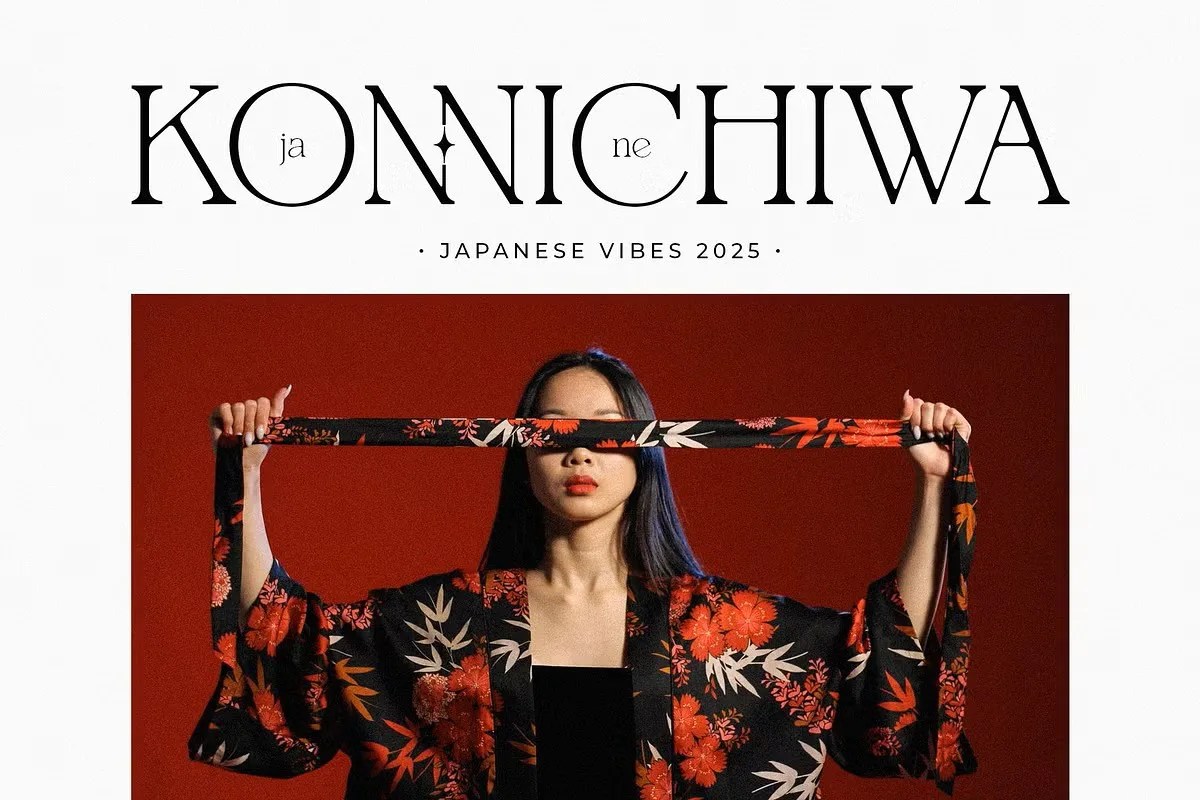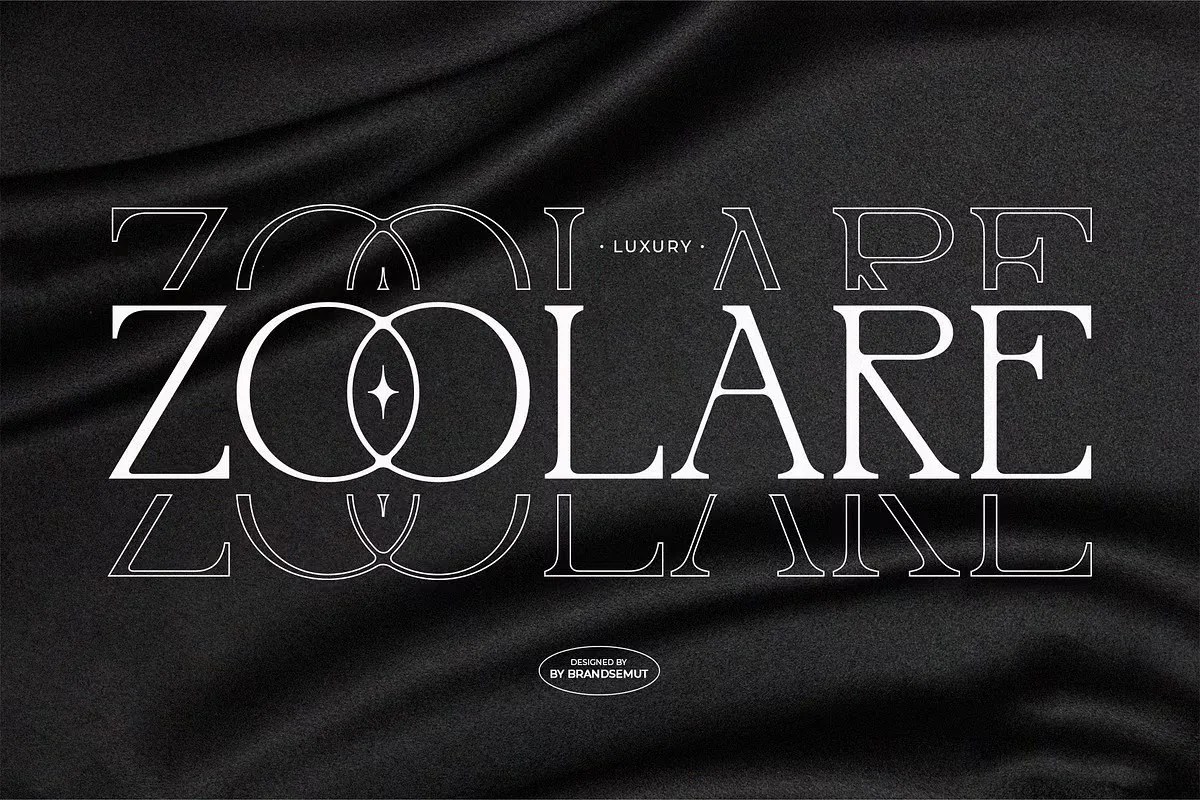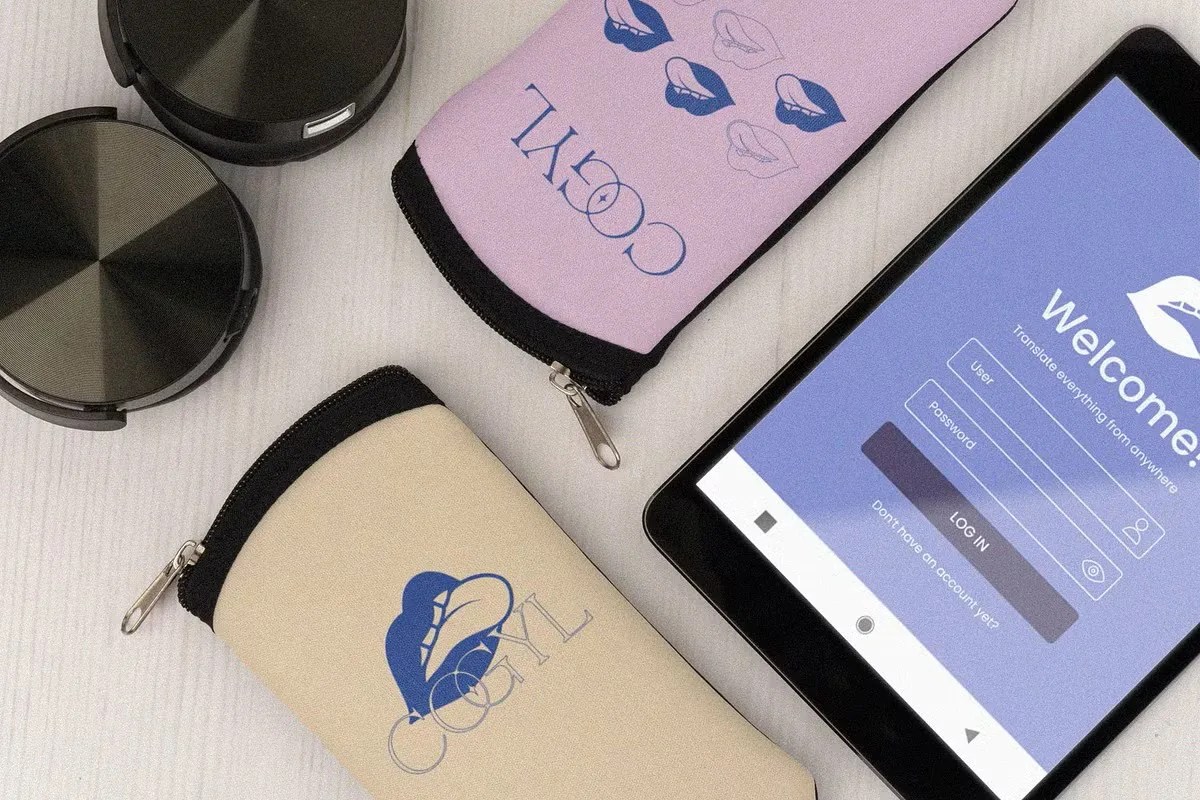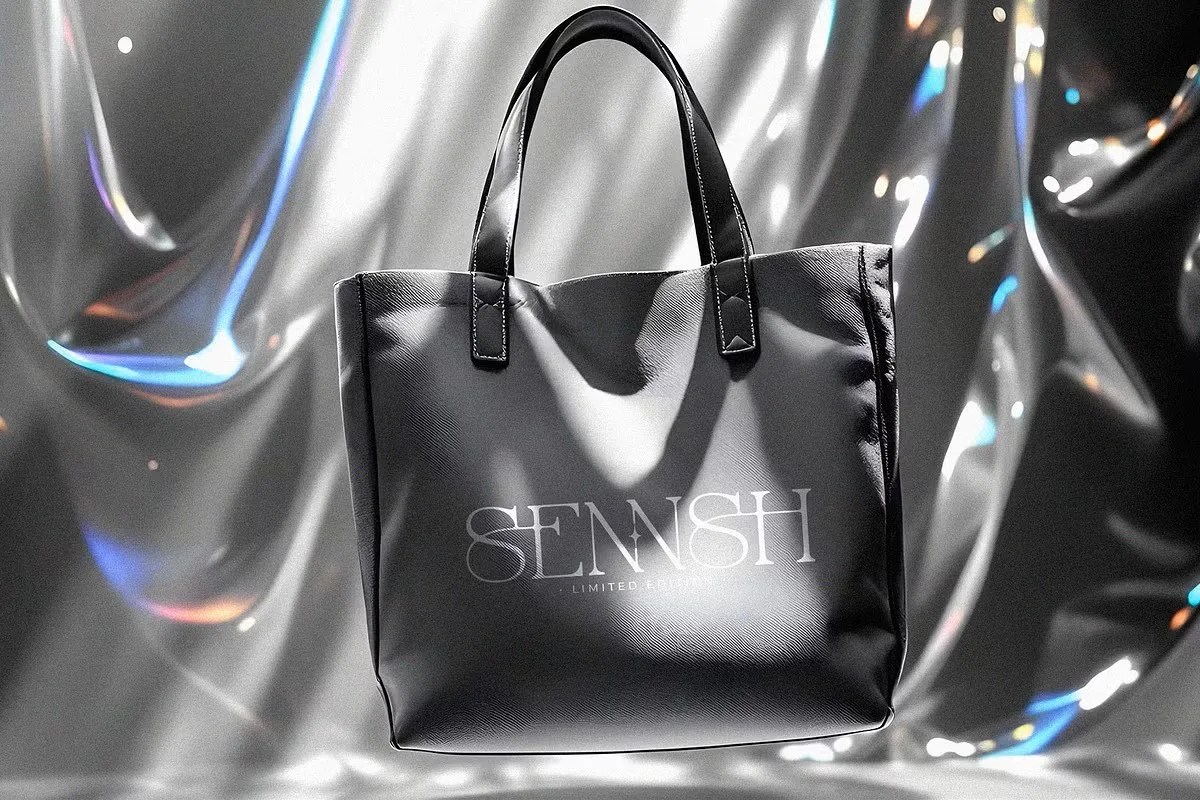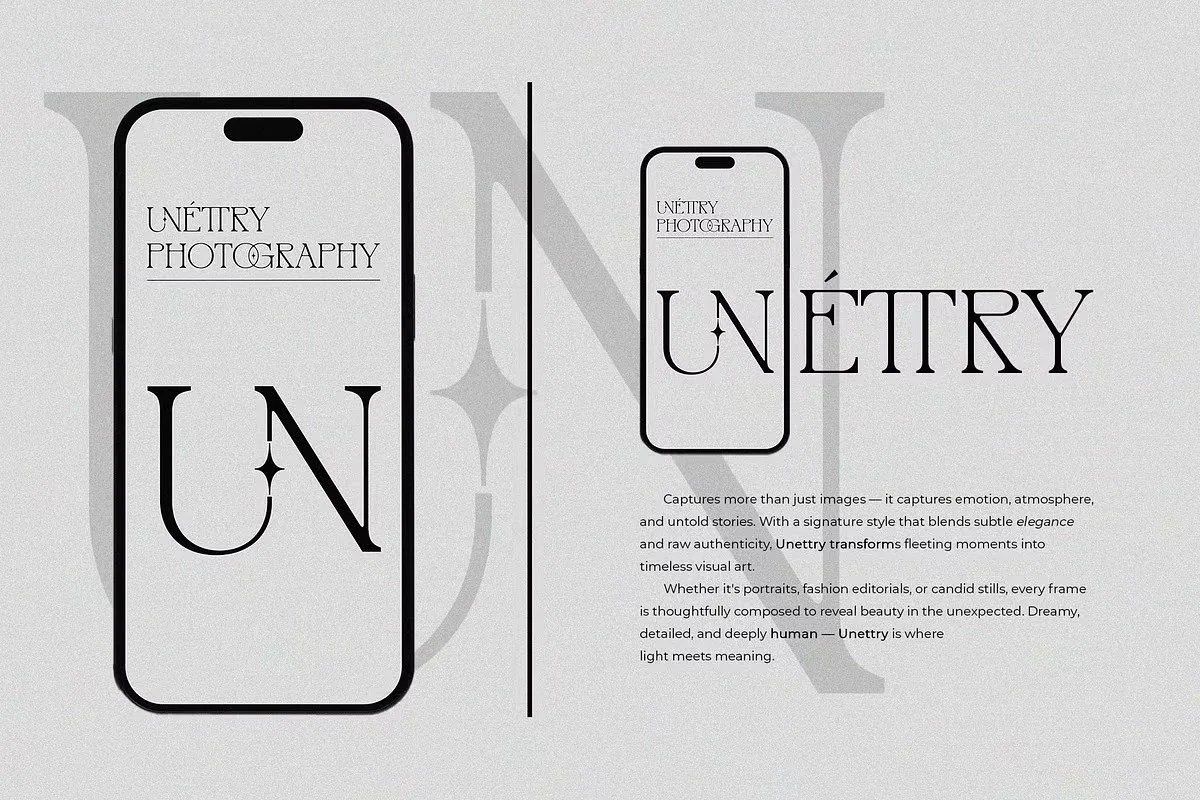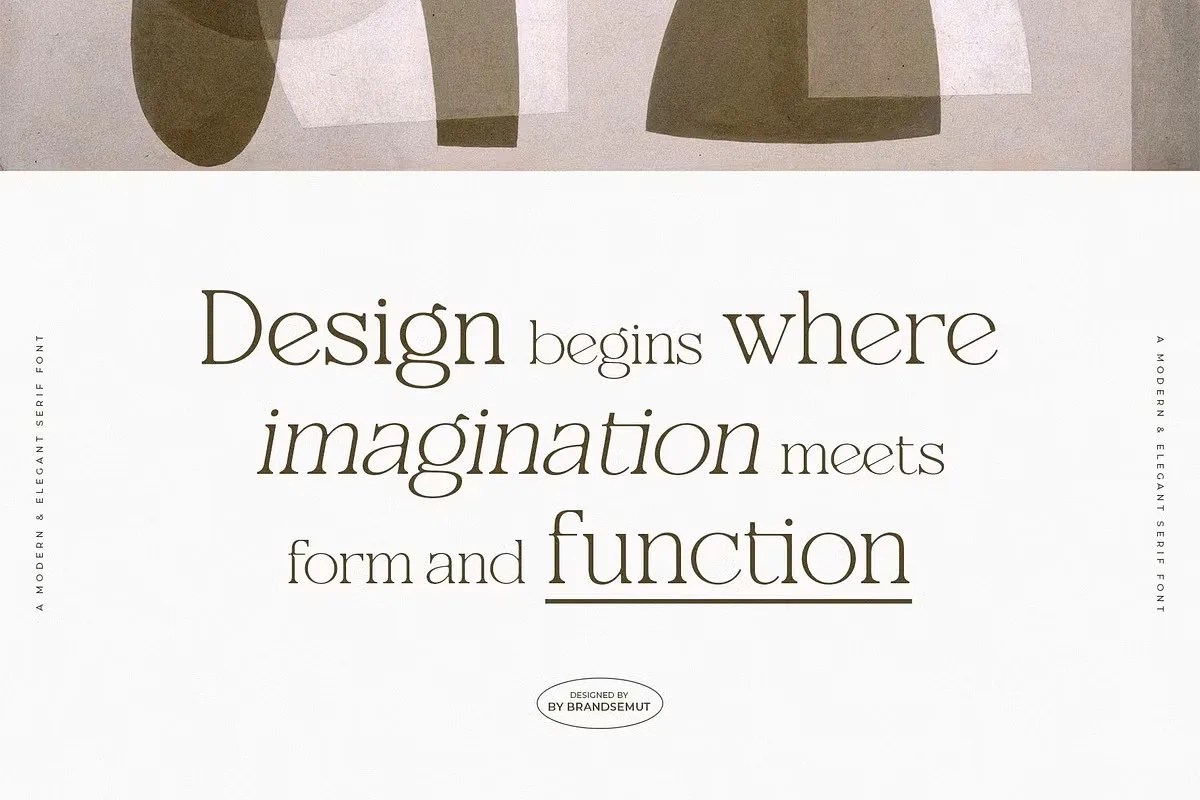
Shuneva by BrandSemut. This is a truly elegant serif font that combines timeless beauty with modern clarity. Its design speaks of sophistication and meticulous attention to detail. Shuneva offers a soft yet confident voice for your creative projects. It is perfect for designs that need to feel both premium and approachable, leaving a lasting impression of quality.
This font is a superb choice for brands that want to project an image of polish and quality. Specifically, it is ideal for lifestyle publications and fashion blogs. It gives headlines a sophisticated, editorial feel without being overly formal. Furthermore, this elegant serif font excels in branding for beauty and wellness products. Its clean lines suggest quality and trustworthiness to the consumer. Use it for formal invitations or refined logotypes that require a special touch of refined grace.
• Graceful and elegant serif style
• Reflects meticulous, detailed craftsmanship
• Ideal for branding, magazine, and logos
• Adds a sophisticated and approachable feel
Shuneva